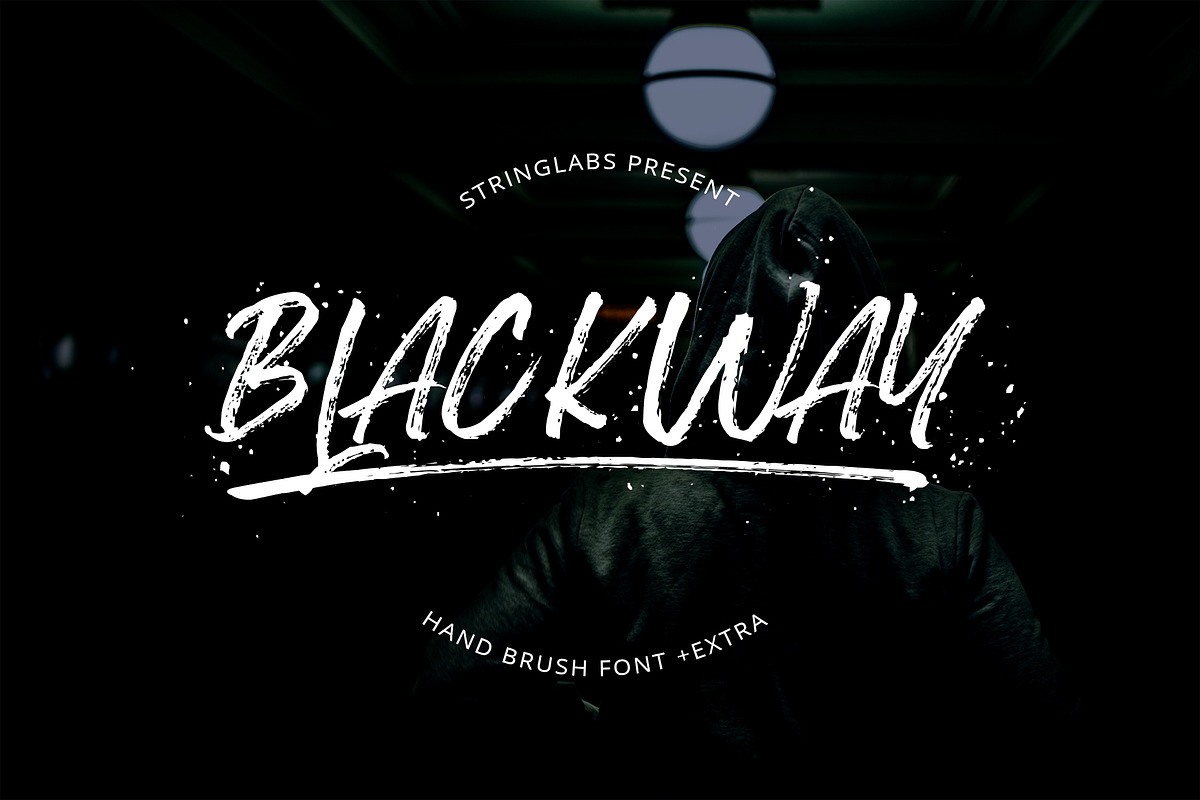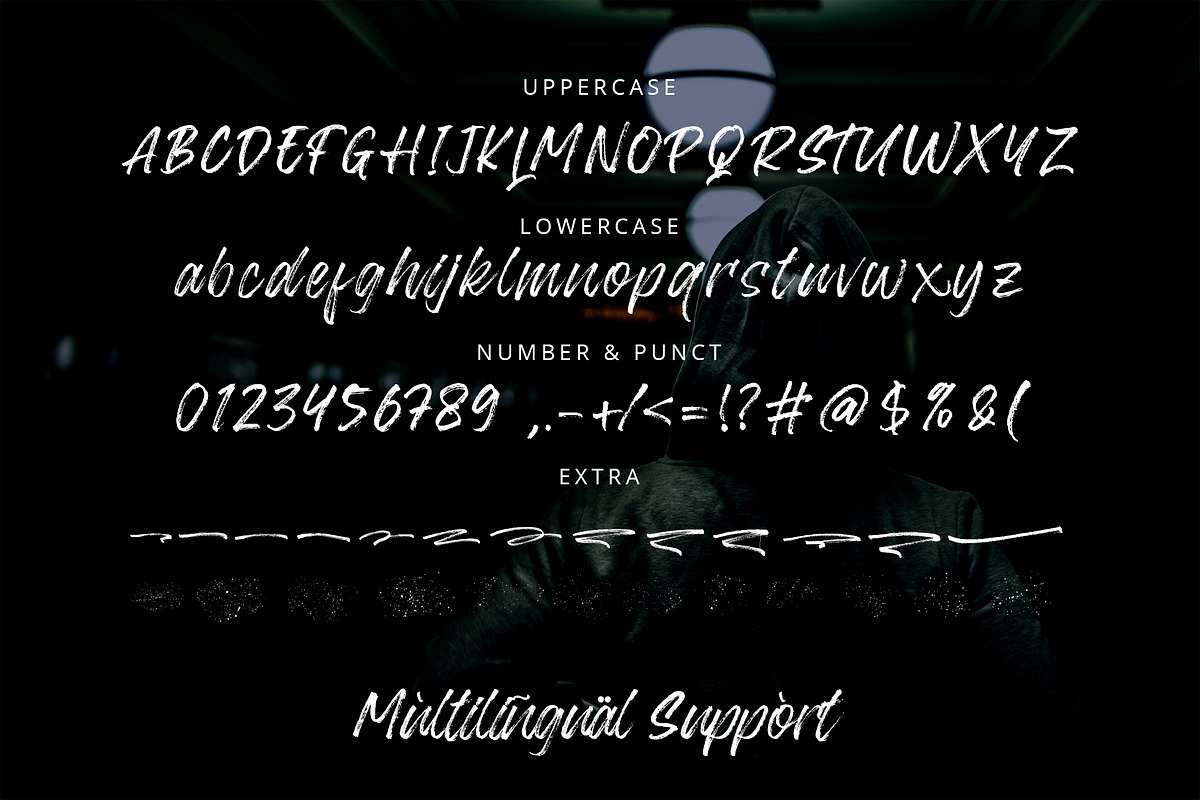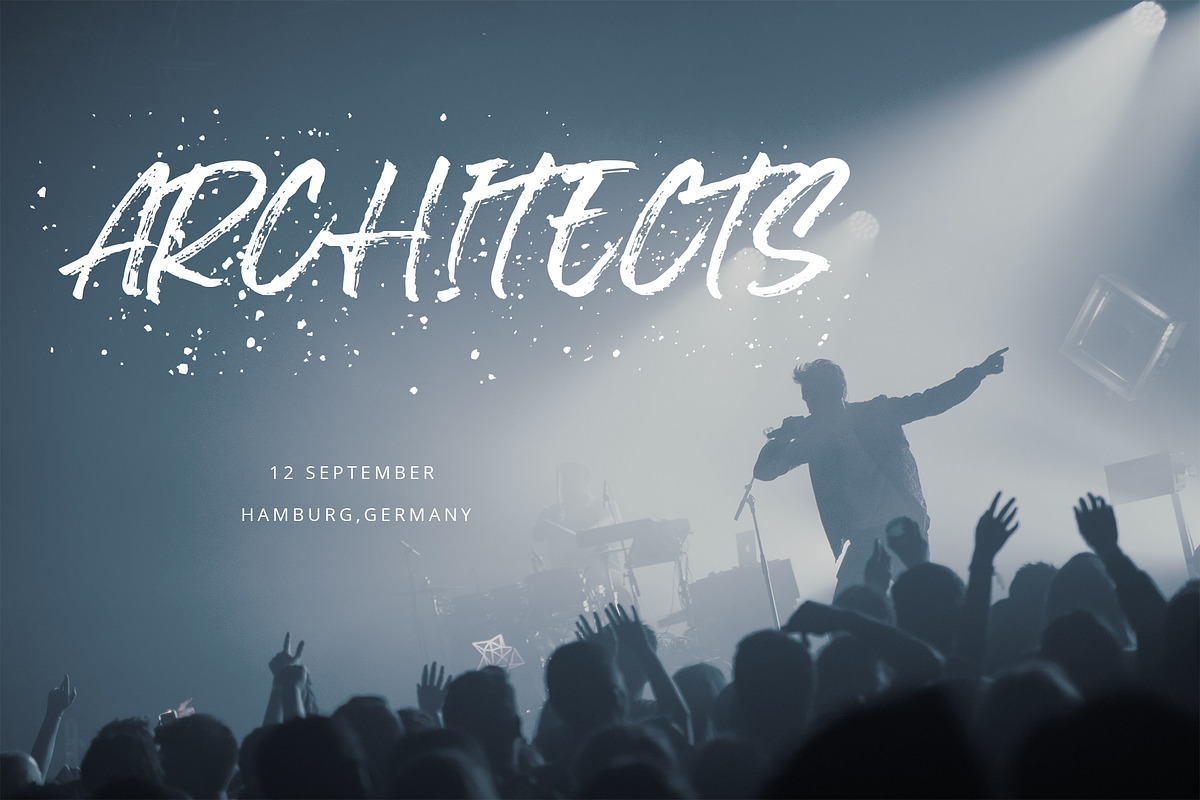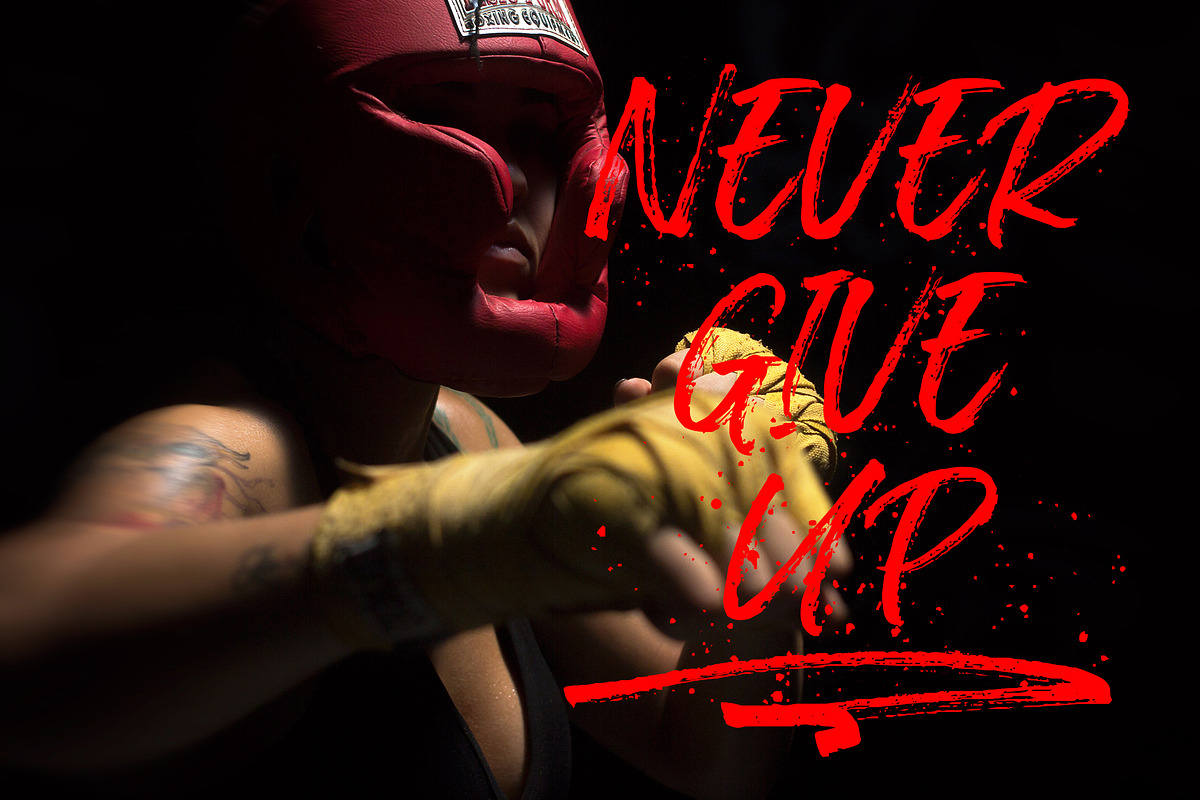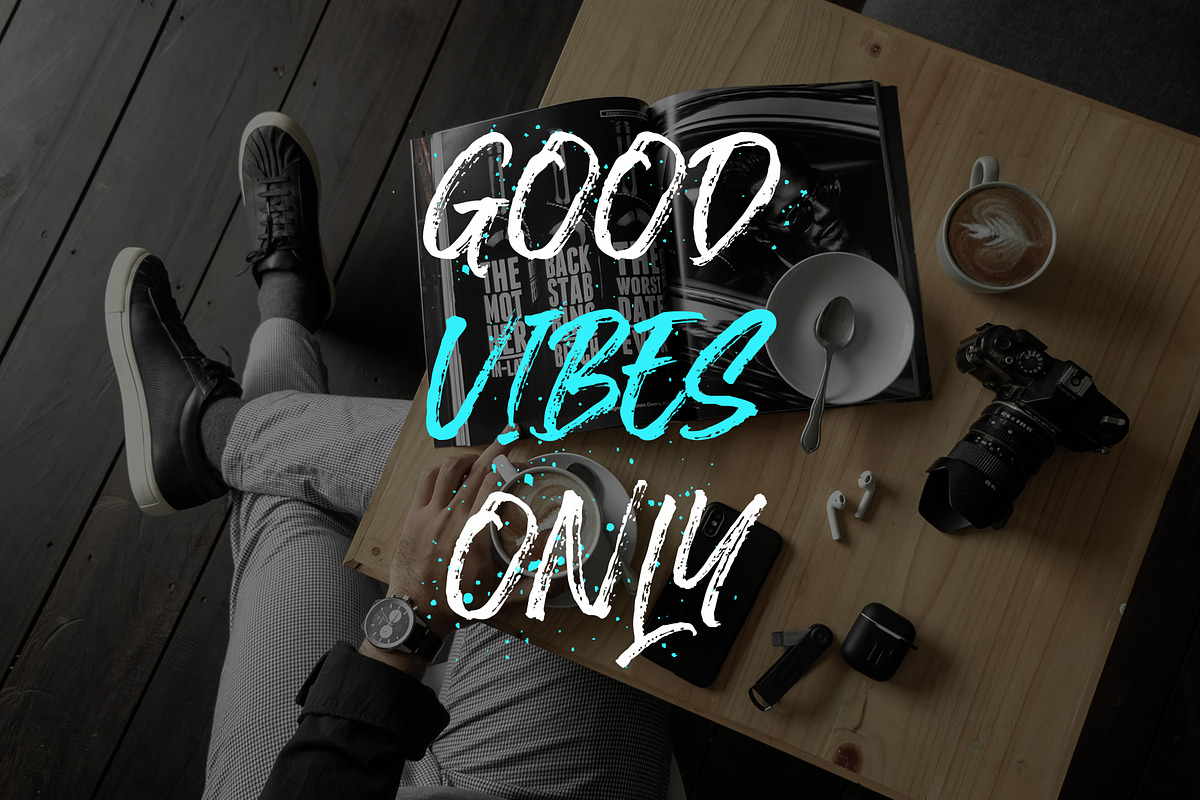
Blackway - Handbrush Font
Introducing Blackway - Handbrush Font
This Font can be used for any variety of purposes, such as: Handbrush, Photography, Invitation, Packaging, Logo Type, Branding Design, Fashion and also can be used for Business purpose.
- This Font Template contains Modern, Elegant, Creative, Professional and Unique Concept.
Why Blackway - Handbrush Font is worth a look
Blackway - Handbrush Font by StringLabs fits naturally into Branding, posters, packaging, typography.